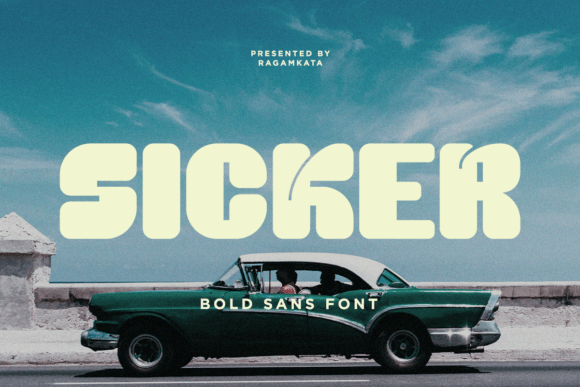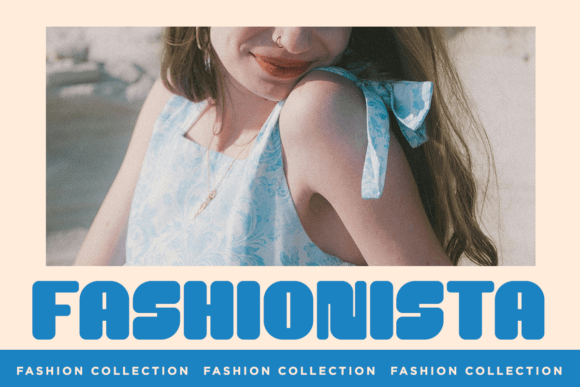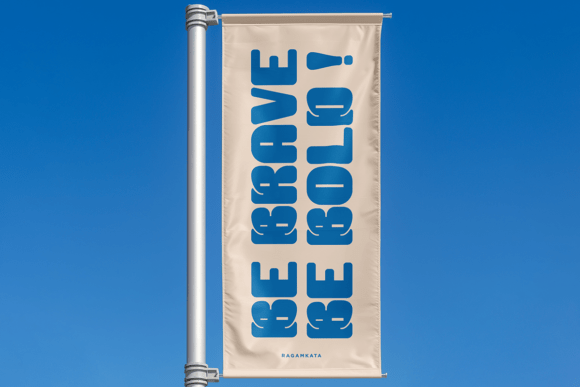
Sicker Font: A Bold & Playful Sans Serif for Creative Branding
About the Sicker Font
Make a bold statement with Sicker Font, a powerful and memorable font. Sicker is a bold sans font for brand identity. It was created to attract the audience to your brand. The finest details of this typeface are methodically and mathematically created. Sicker is created with all the tasks of a corporate font and also for usage in a variety of projects, including branding, logos, titles, headlines, banners, posters, screens, displays, digital ads, and everything else.
Sicker Font Usage Examples
Sicker Font Example